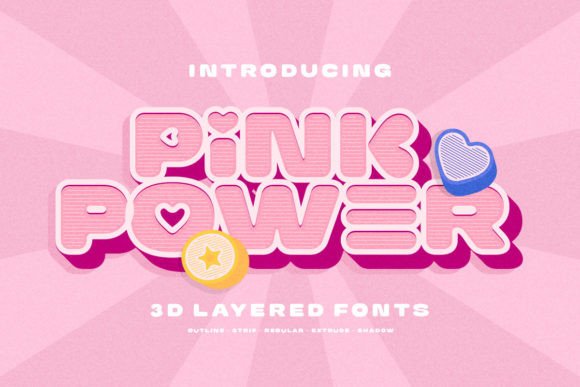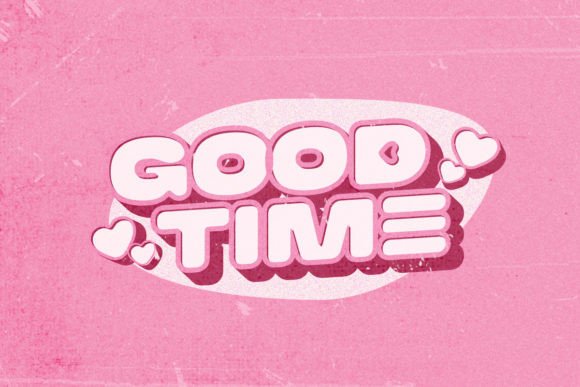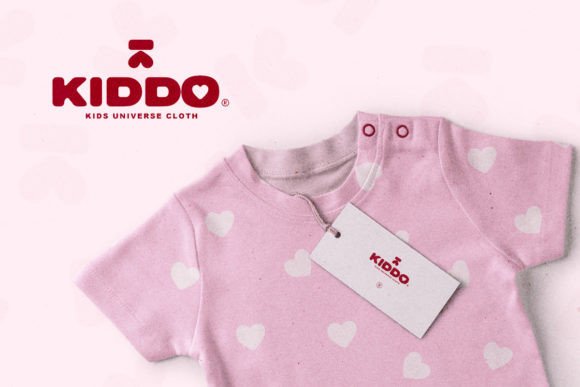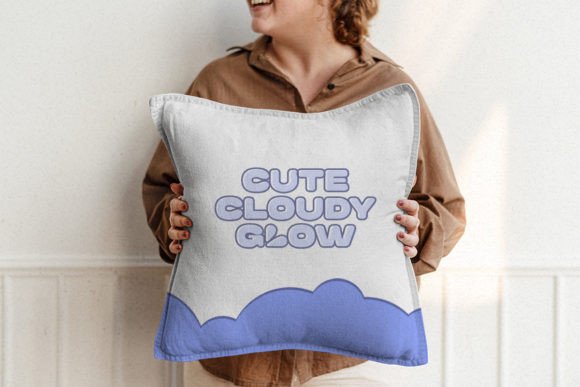
Pink Power is a 3D retro font sans-based that contains layered styles and icons! You can use this font for any purpose such as posters, branding, merchandise, and any retro style! With unique lowercase, you can combine the lowercase and uppercase in one word that will give you the best look! This stylish bold font is suitable to use for posters, branding, merchandise, and any retro style!
Pink Power Font